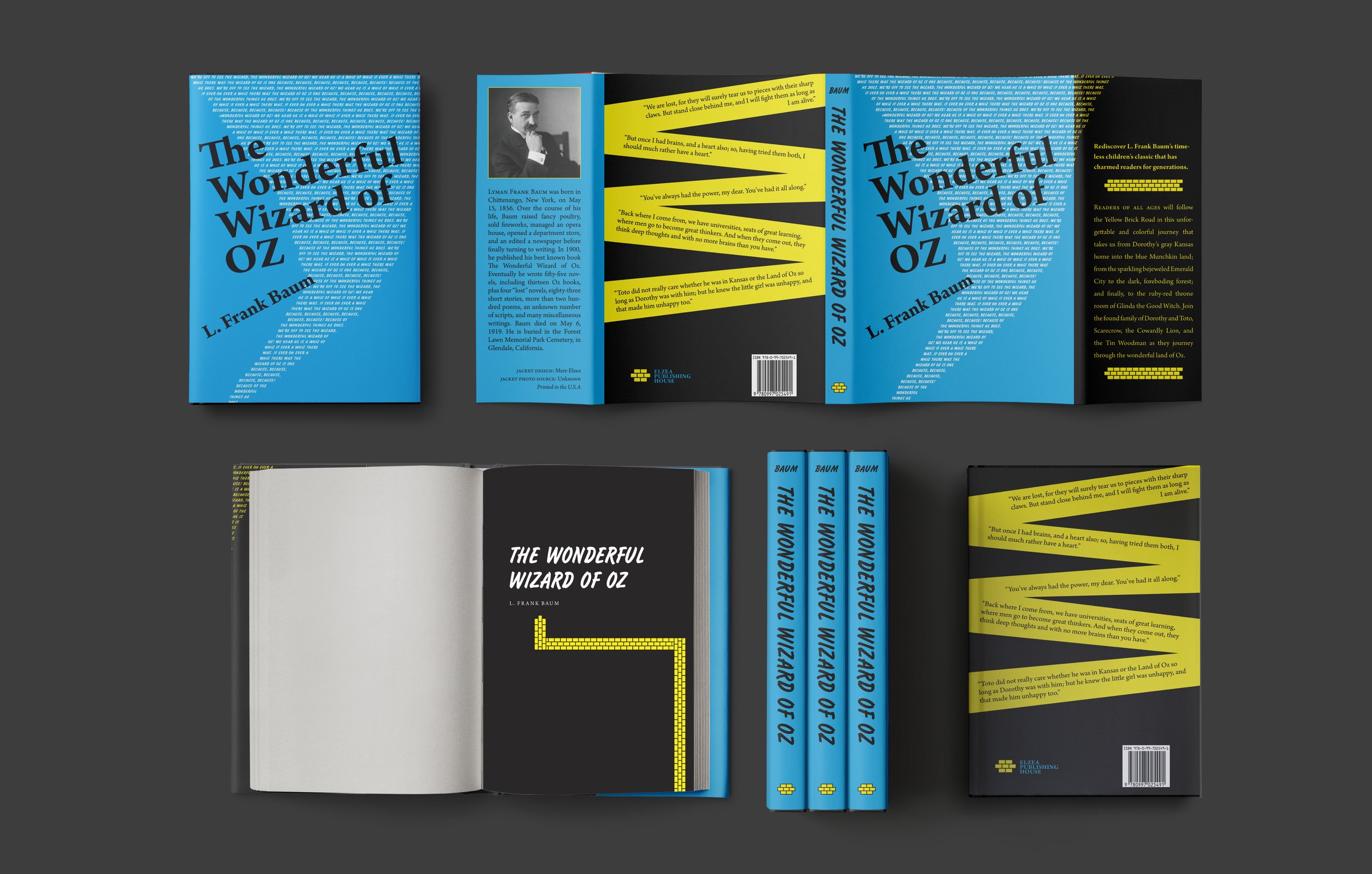
The Wonderful
Wizard of Oz
by L. Frank Baum
designed by Mere Elzea
The Wonderful Wizard of Oz by L. Frank Baum, originally published in 1900, is a classic tale many of us are familiar with. However, I was only exposed to the storyline as represented by the movie and music. I chose to redesign this book because I wanted to reimagine a contemporary version of a classic, steering it away from the vintage fantasy aesthetic.
One of the main visual motifs of my design was to set the words of the titles and chapter openers askew so they would look as if they are playfully falling apart or as if they are being chaotically rearranged. Dorothy being blown to a far away land, the main character's self-identifying limitations being broken down, and the facade of Oz falling apart are some examples of why I chose this approach. I also wanted to acknowledge the beloved lyrics we all know so well, displaying them in the silhouette of a tornado, encapsulating the sweetness of Oz in the vehicle that brought Dorothy there as the main cover image.
Through these design decisions, my intention was to avoid leaning into the grandiosity of Oz and instead play into the endearing qualities of humanity in the book.
Target Audience
Millennials or older generations who have nostalgia for the Wizard of Oz, but a want fun, contemporary version of it on their shelves
Trim Size
6 × 9"
Text
13/16.5 Arno Pro
Specifications
Jacketed Hardcover